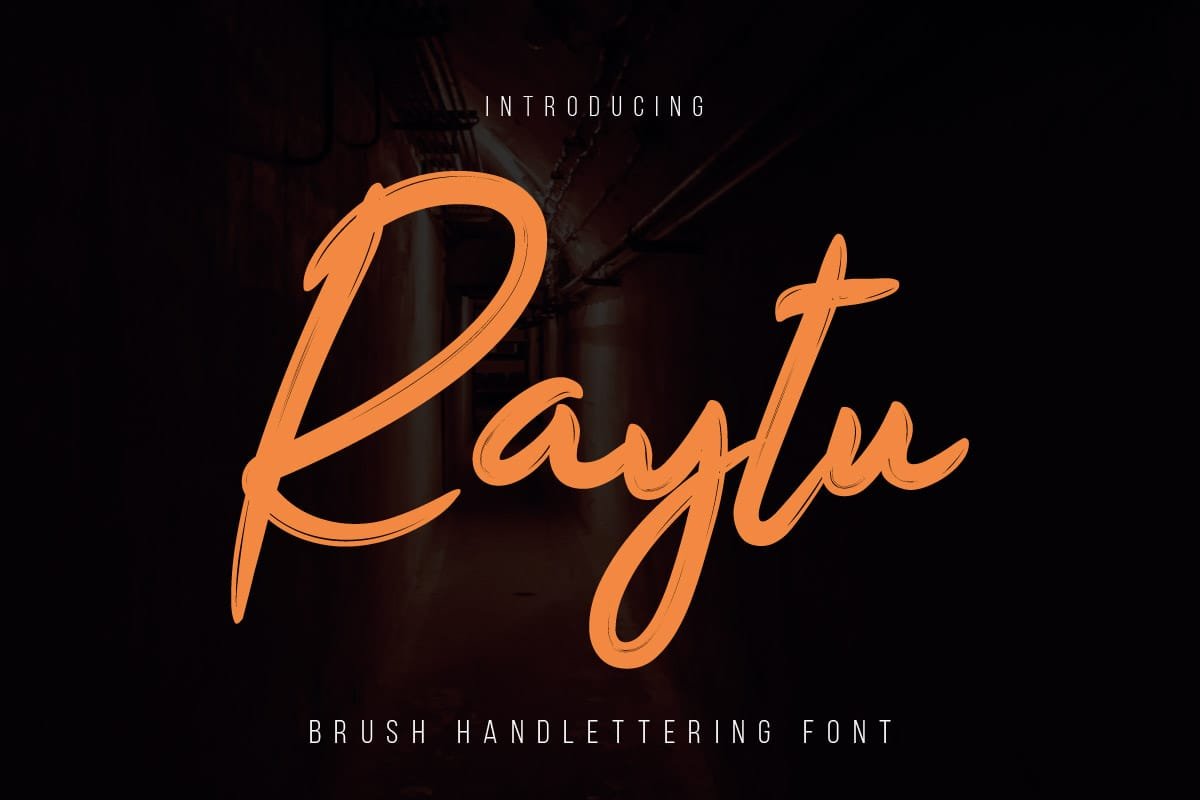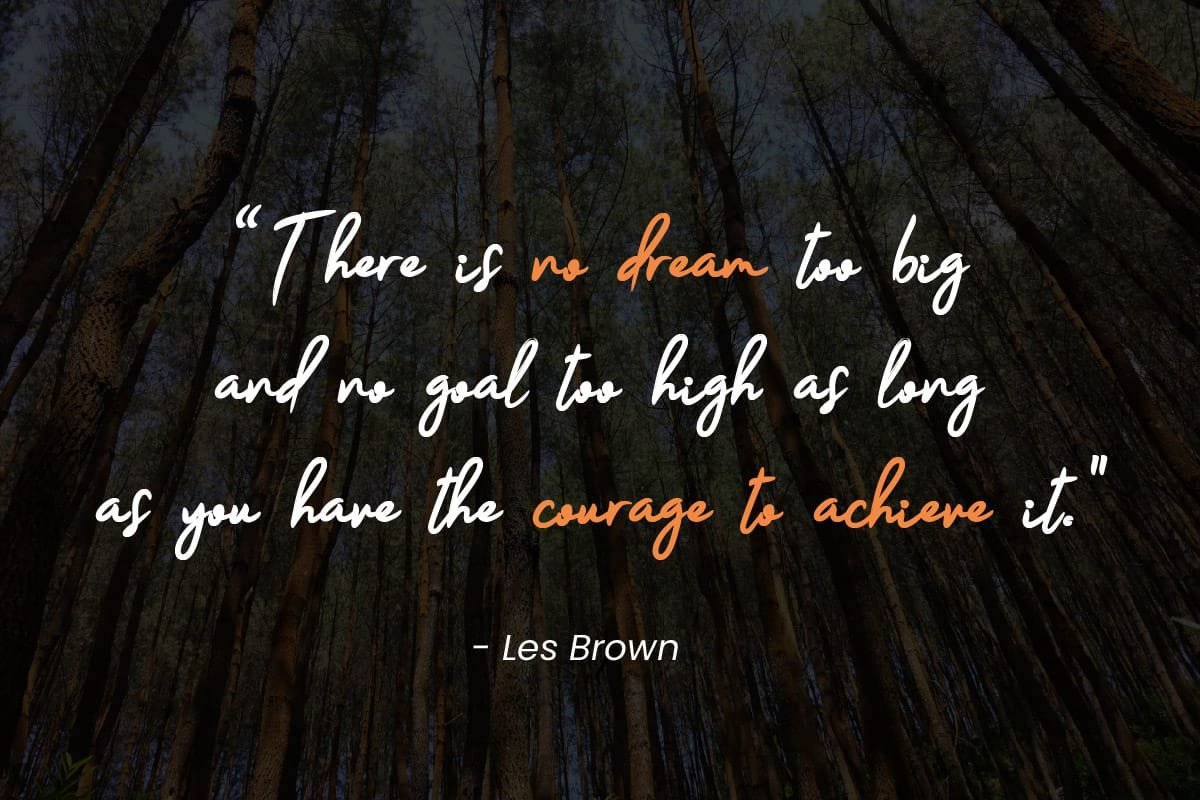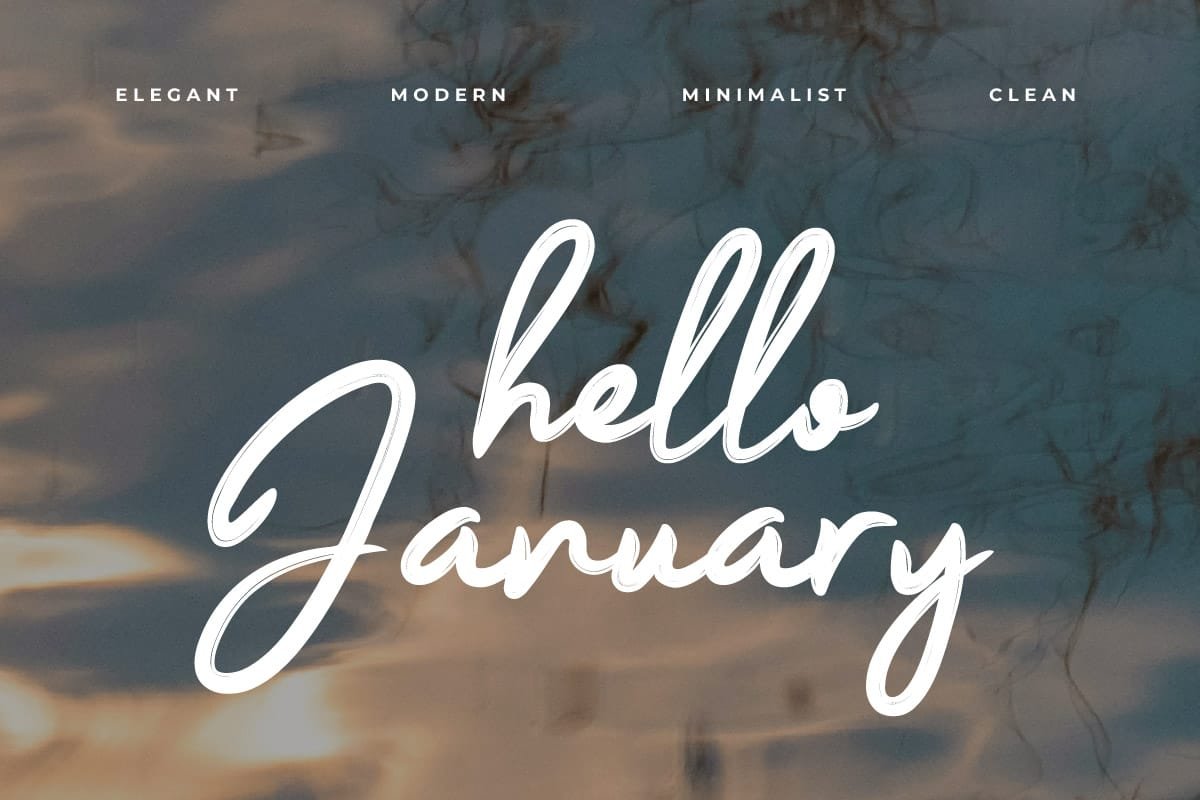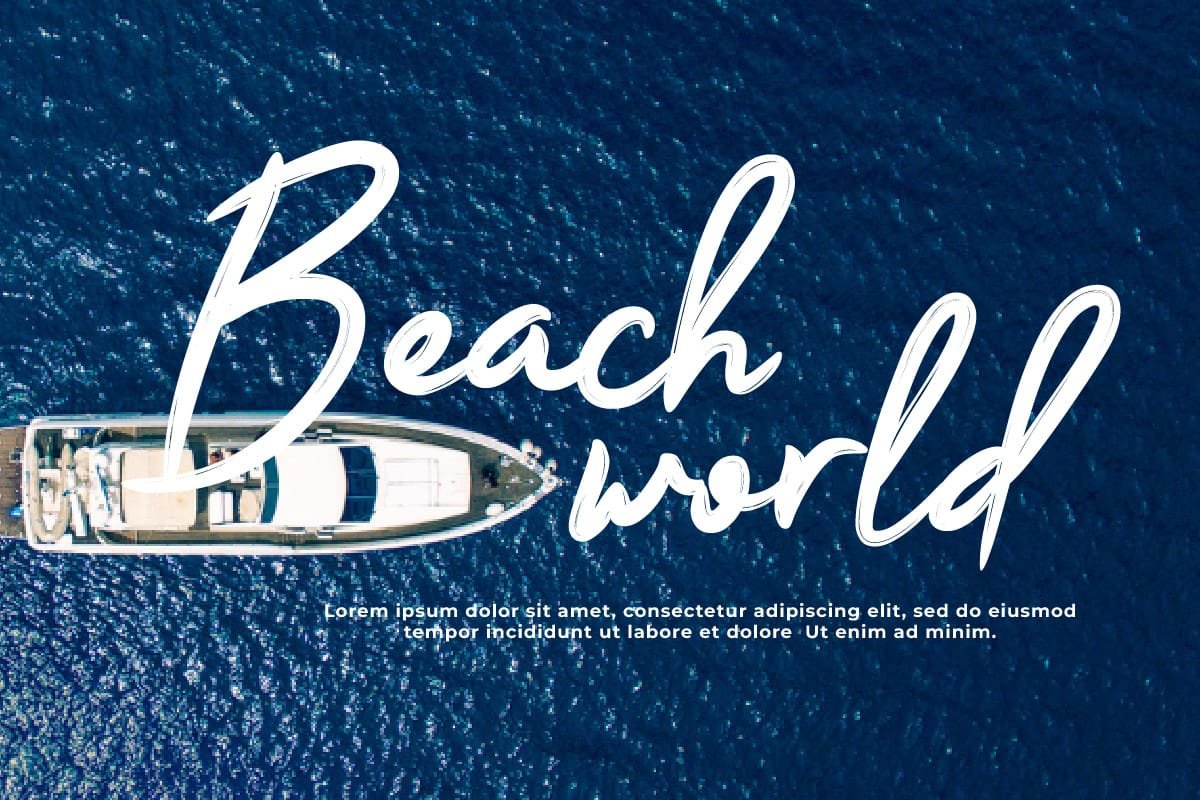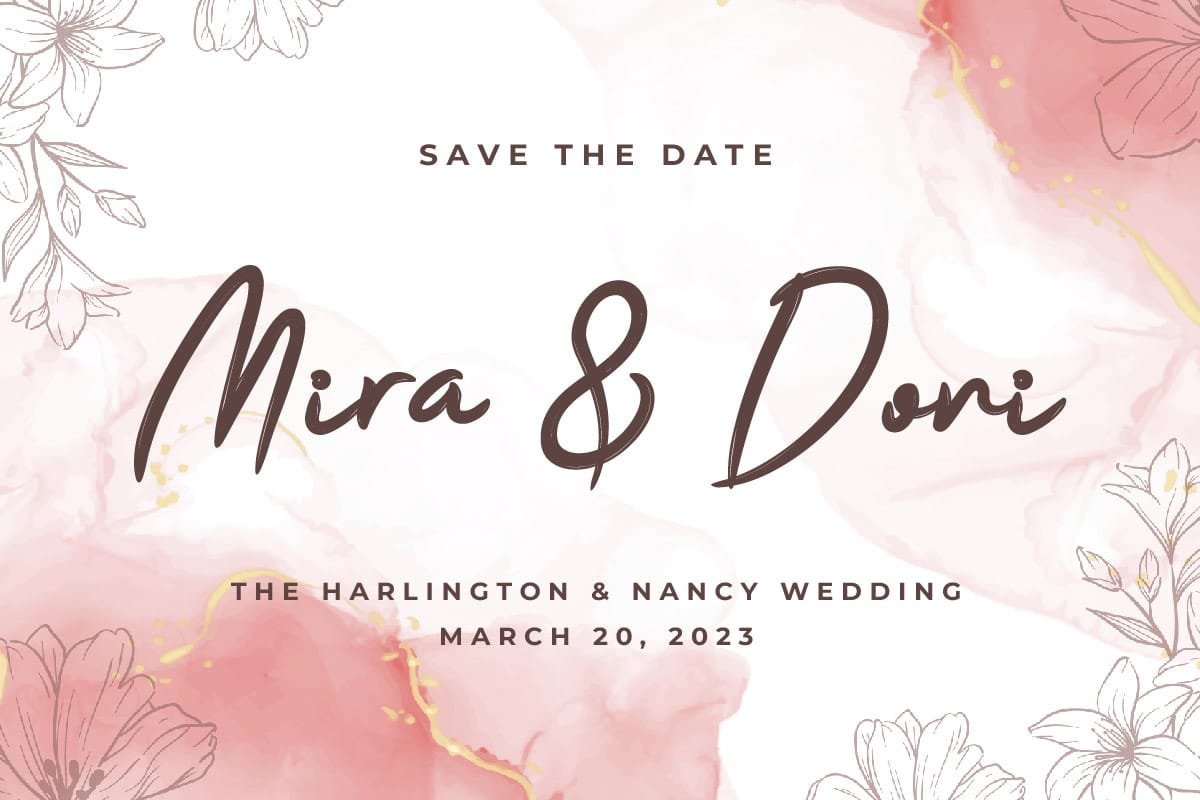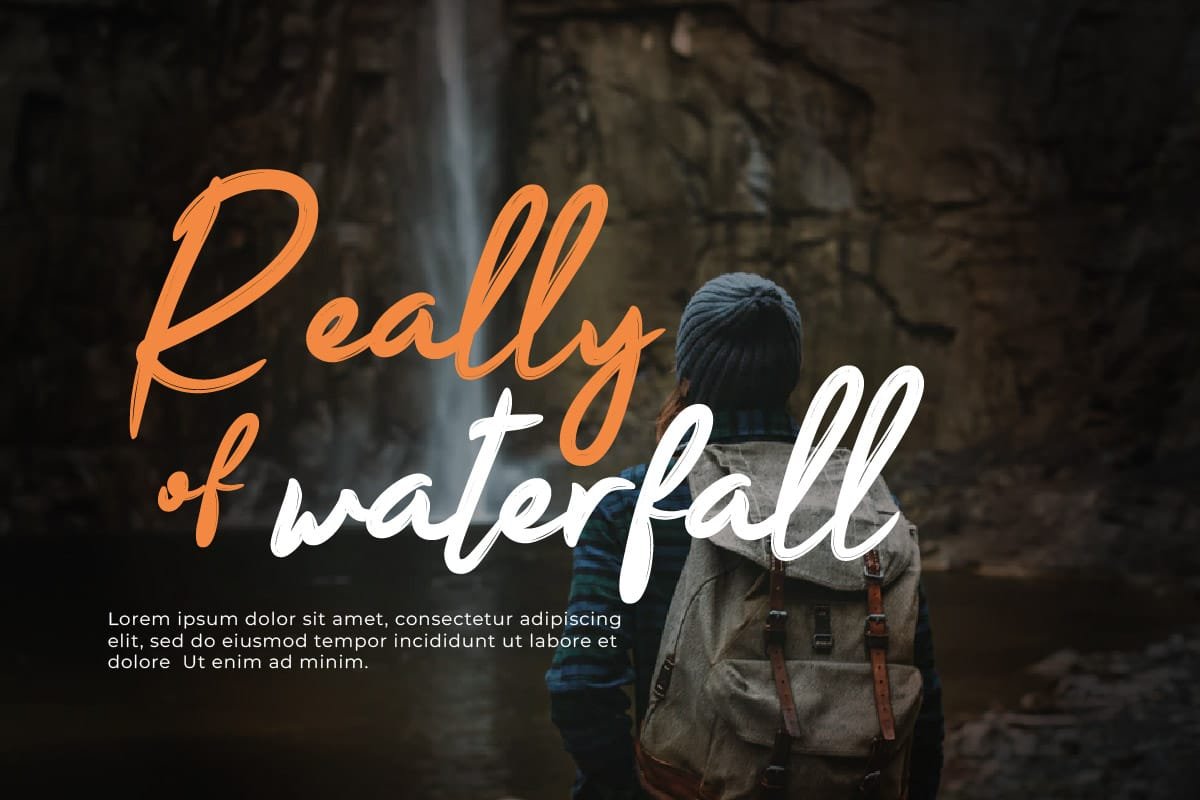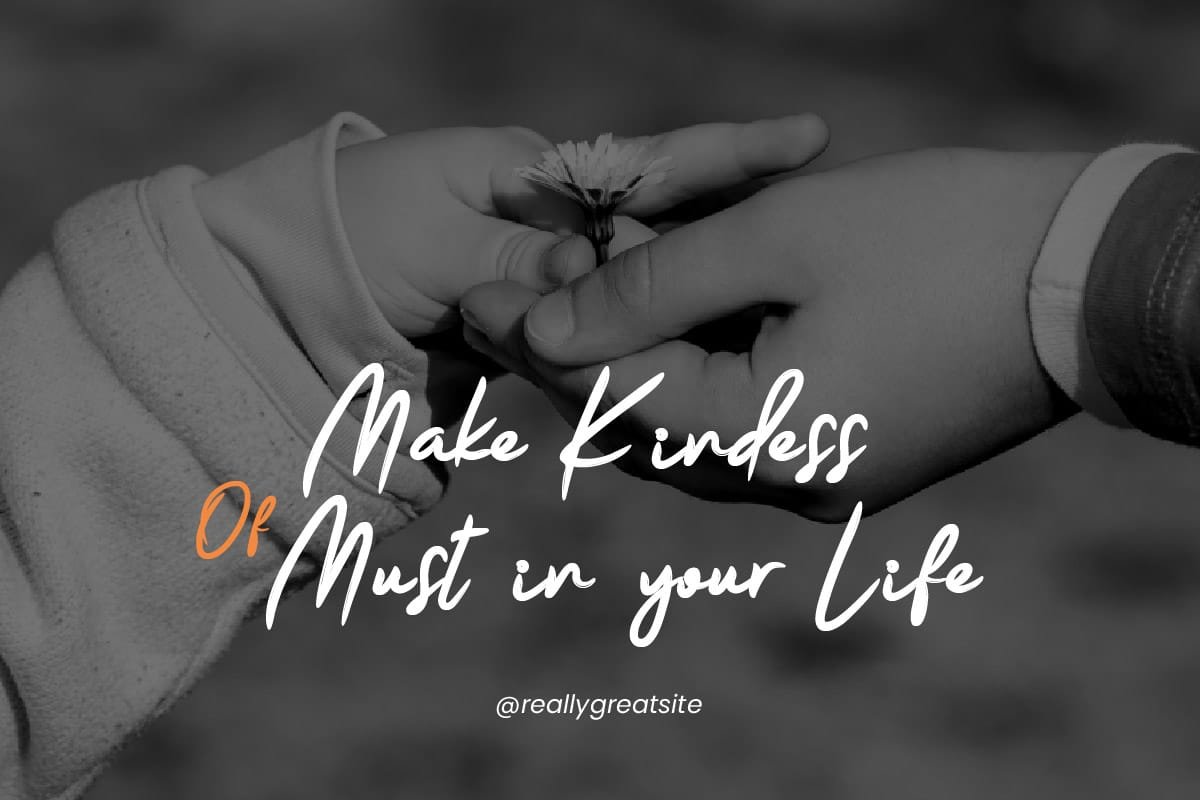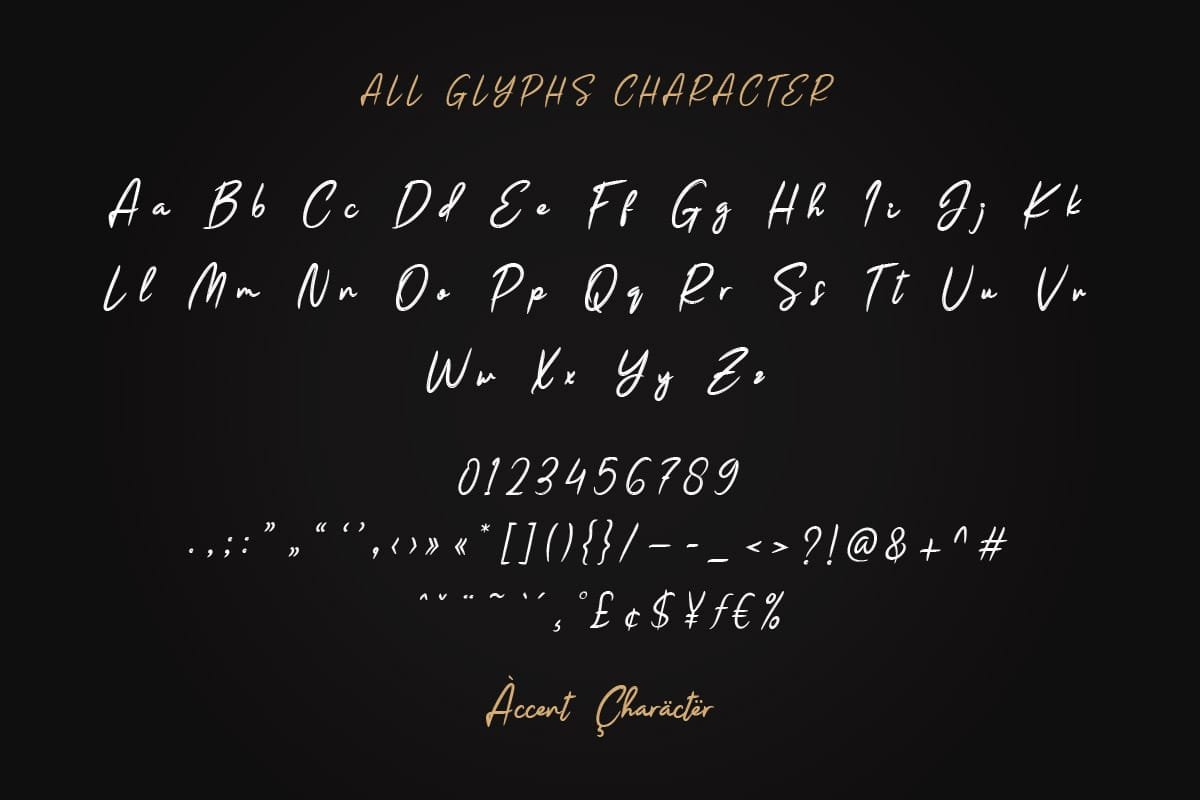
Embark on a journey of imagination with Raytu – Brush Handwritten Font. Inspired by whimsy and fantasy, this font captivates with its playful curls and fantastical design. Perfect for projects that seek to evoke a sense of wonder and magic, Raytu is ideal for designing enchanting fairy tale book covers, dreamy wedding invitations, or whimsical social media graphics. With Raytu, every design becomes a portal to a world of dreams, where imagination knows no bounds. Get ready to explore new horizons and unlock your creativity with Raytu – the font that’s full of enchantment!